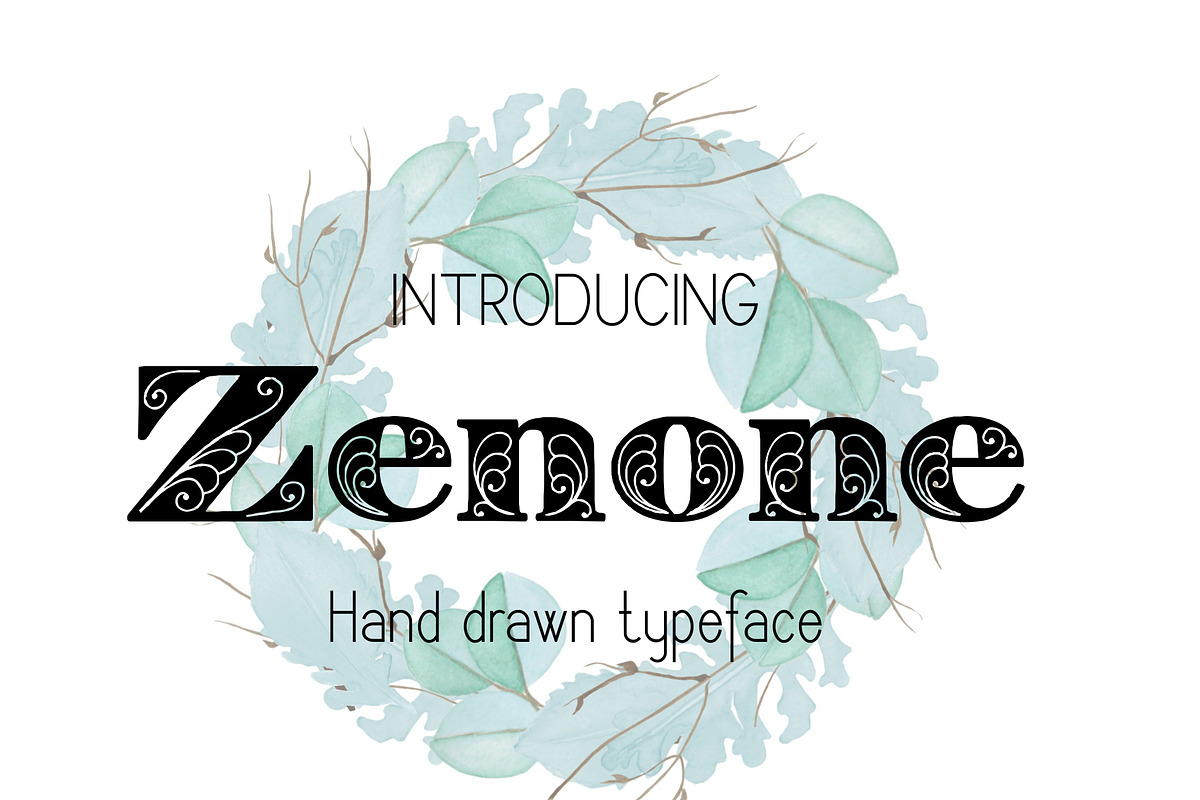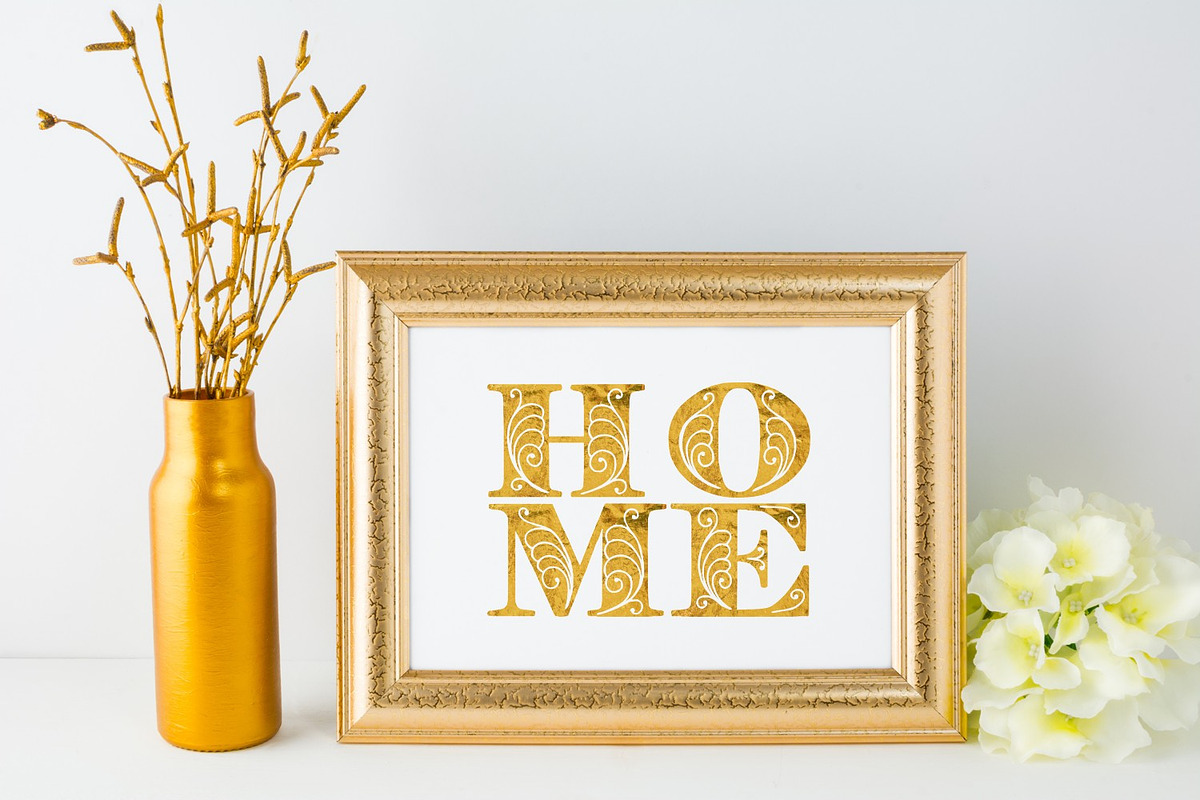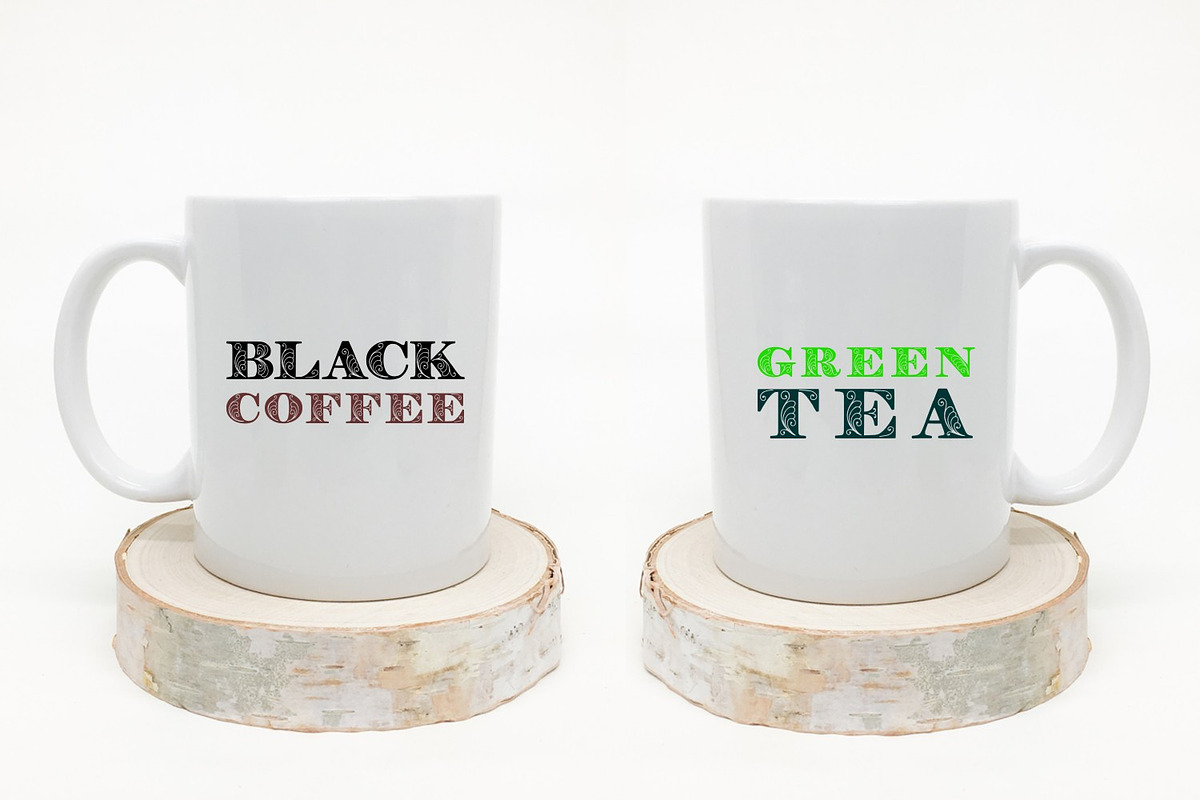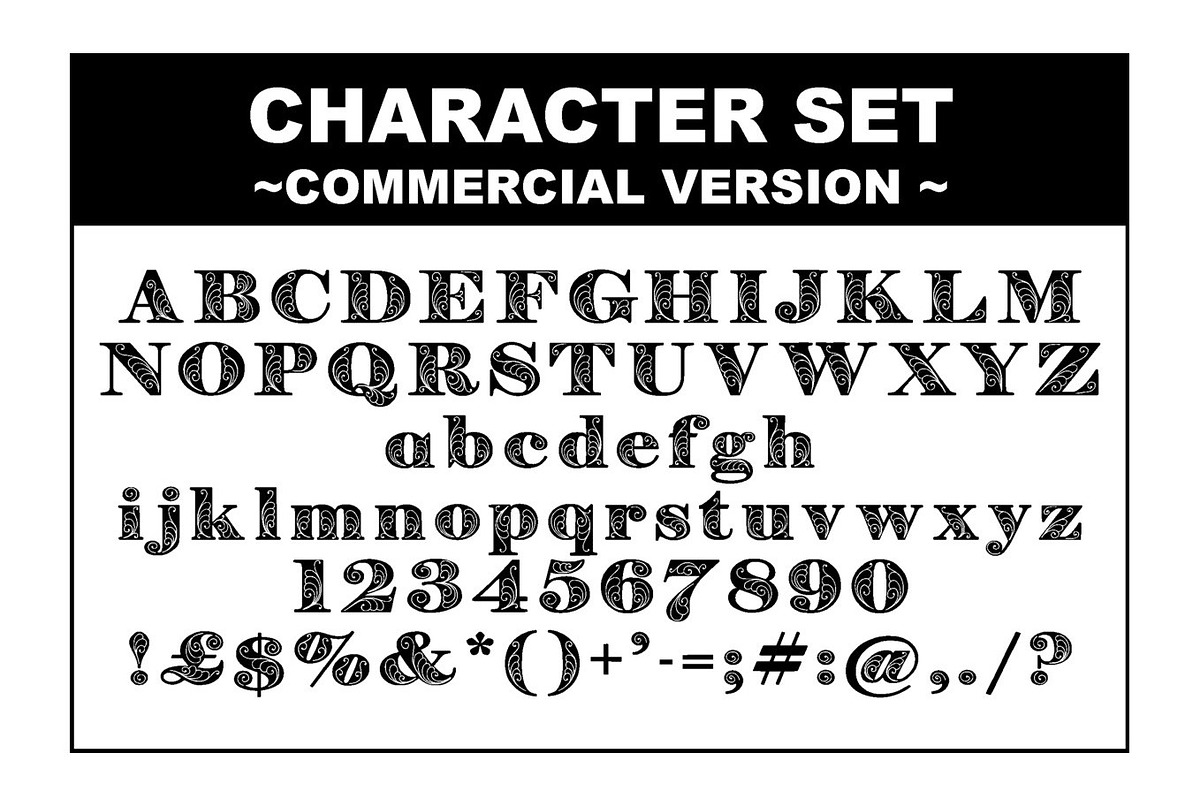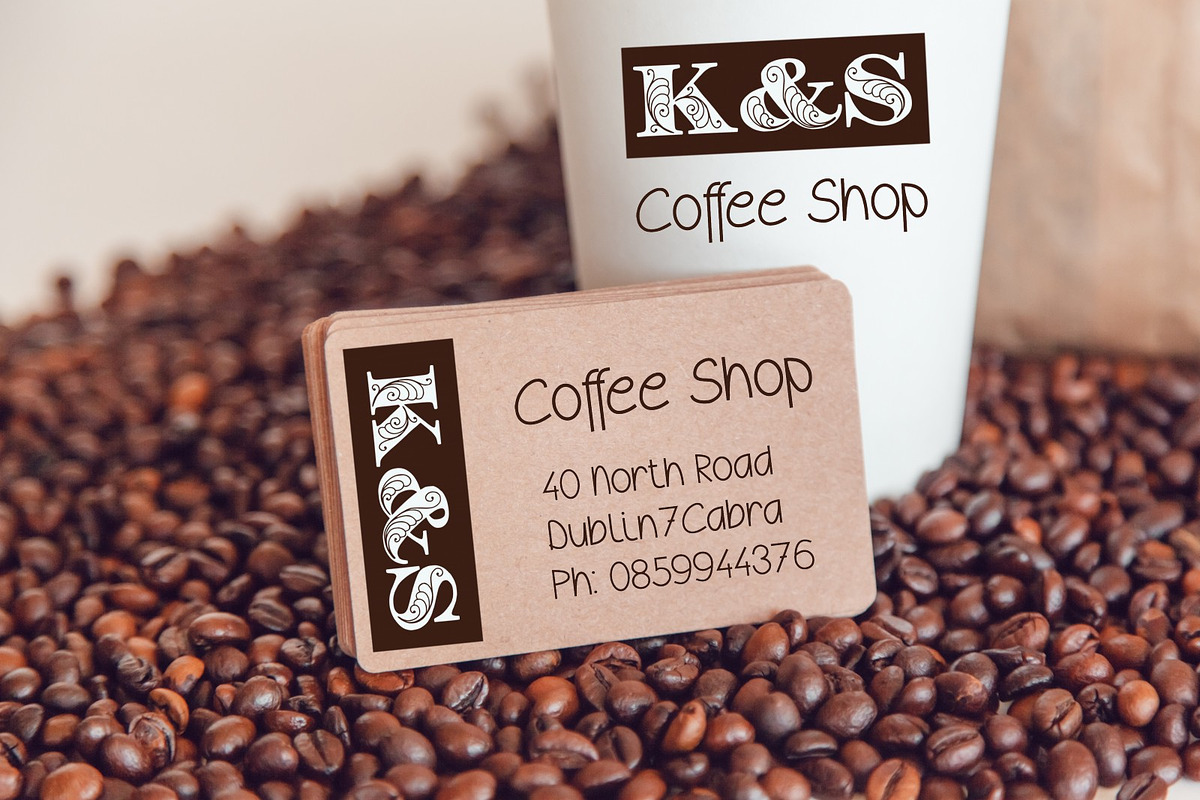
Zenone font
Zenone font by Digital Typeface Studio is a font selected for branding, posters, packaging, typography.
Why Zenone font is worth a look
Zenone font by Digital Typeface Studio fits naturally into Branding, posters, packaging, typography.